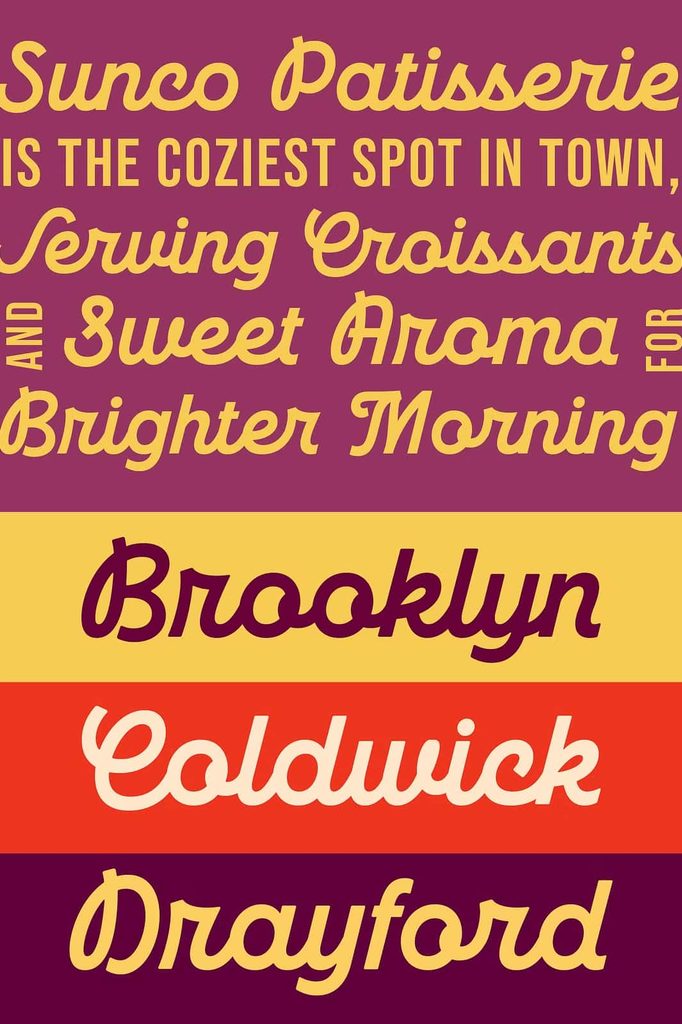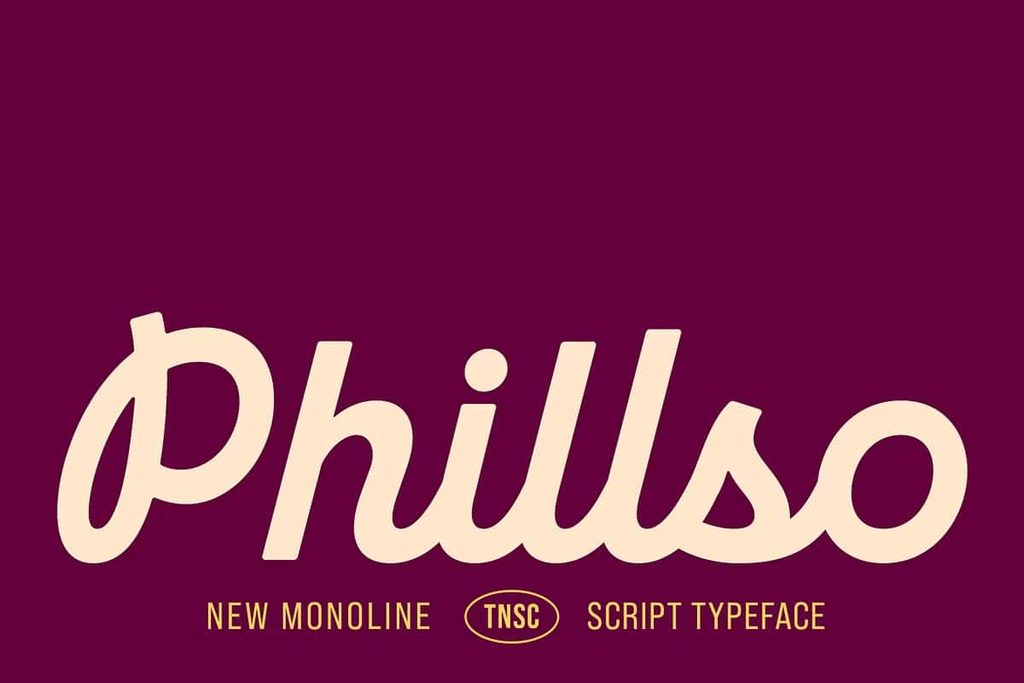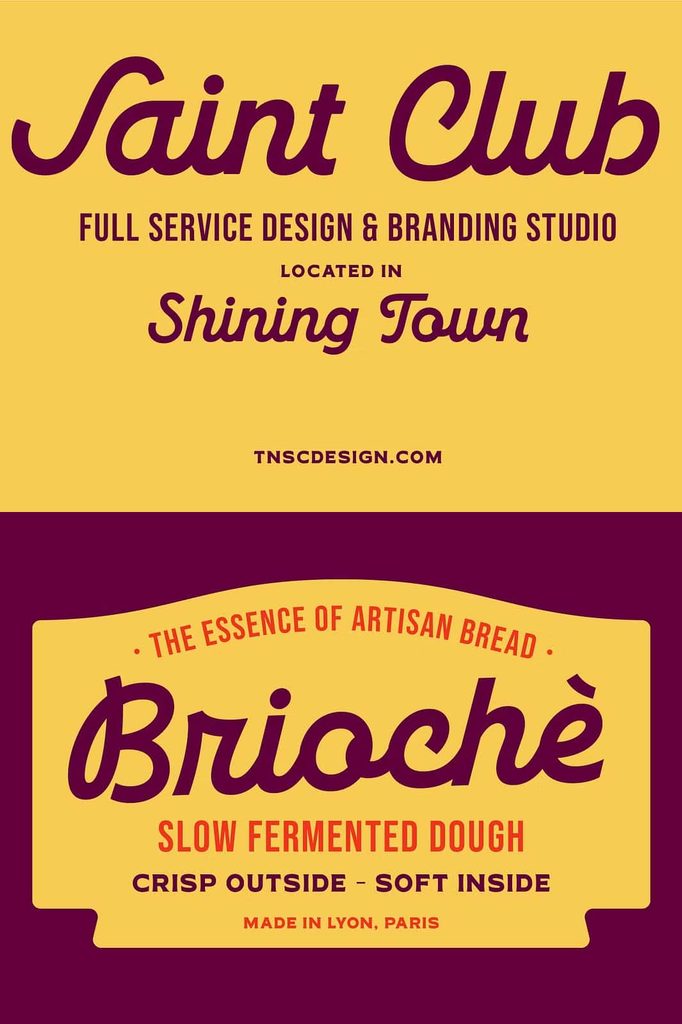
TNSC Phillso Font
TNSC Phillso Font brings bold personality and retro-inspired charm to modern typography. Designed as a monoline script, it combines smooth curves with a confident handwritten character, creating a warm and approachable appearance for a wide range of creative projects. Its consistent line quality gives the lettering a clean visual rhythm, while the flowing forms add the expressive quality that makes script typography so appealing.
Created with branding, packaging, and display design in mind, TNSC Phillso can help transform ordinary words into memorable visual elements. Its bold presence makes it particularly effective for logos, headlines, signs, café menus, product labels, and promotional graphics. The retro influence adds a nostalgic quality without preventing the font from working in contemporary layouts.
Whether you are building a complete brand identity or adding a distinctive typographic accent to a single design, TNSC Phillso provides a flexible solution. Its smooth curves and friendly personality allow designers to create compositions that feel handcrafted, energetic, and inviting.
A Bold Monoline Script with Retro Character
TNSC Phillso stands out through its monoline construction. The consistent stroke treatment creates a smooth and unified appearance across the lettering. Unlike scripts that rely heavily on dramatic variations in stroke width, this approach gives TNSC Phillso a cleaner and more approachable visual style.
The bold construction helps the font maintain a strong presence in display applications. Use it for short words, brand names, headlines, product names, and promotional messages where you want typography to immediately capture attention.
The retro-inspired character adds warmth and personality. It can evoke the atmosphere of classic storefronts, vintage advertisements, neighborhood cafés, old packaging, and handcrafted signs. At the same time, its clean construction allows you to incorporate it into modern branding systems without making the design feel overly dated.
Perfect for Branding and Logo Design
TNSC Phillso Font provides a strong foundation for expressive branding. Its bold script appearance can turn a simple business name into a distinctive wordmark with a friendly and memorable personality.
Use the font for cafés, bakeries, restaurants, food brands, clothing labels, creative studios, lifestyle businesses, handmade shops, beverage brands, and other businesses that want a warm and approachable visual identity.
For logo design, keep the composition focused on the lettering. A simple wordmark can often communicate more effectively than a crowded combination of graphics and text. You can also introduce a clean sans serif as supporting typography for taglines, descriptions, or contact information.
Experiment with spacing and scale to find the right balance for your brand. A large TNSC Phillso wordmark can create an energetic identity, while a smaller treatment can function as a subtle signature or decorative brand element.
Retro-Inspired Packaging Design
The nostalgic character of TNSC Phillso makes it particularly suitable for packaging. Use it for product names, labels, badges, stickers, boxes, bags, and promotional packaging that needs a handcrafted or vintage-inspired personality.
The bold monoline structure helps product names remain visible, while the flowing script adds an inviting quality. This combination can work especially well for food and beverage products, artisan goods, specialty products, apparel, and lifestyle merchandise.
To strengthen the retro aesthetic, combine TNSC Phillso with vintage-inspired colors, simple illustrations, textured backgrounds, borders, badges, or decorative shapes. For a more contemporary presentation, place the font against a clean background and reduce the number of supporting elements.
Ideal for Café Menus and Restaurant Branding
TNSC Phillso Font naturally complements café and restaurant design. Its warm script character can help create a welcoming atmosphere across menus, storefront signs, promotional posters, takeaway packaging, loyalty cards, and social media graphics.
Use the font for a café name, featured menu items, promotional messages, or decorative headings. Pair it with a clean supporting typeface for descriptions and pricing so that the design remains easy to navigate.
The retro influence can also reinforce a classic diner, coffee shop, bakery, or neighborhood café theme. Combine the lettering with simple illustrations, food photography, vintage badges, or subtle textures to create a cohesive visual identity.
Create Warm and Approachable Visuals
Typography strongly influences how viewers perceive a brand. A highly formal typeface can communicate luxury and authority, while a casual script can create a friendlier impression. TNSC Phillso combines boldness with smooth, relaxed curves to create a visual style that feels confident without becoming overly serious.
Whether you are building a friendly café identity, designing handcrafted packaging, creating a retro logo, or developing eye-catching promotional artwork, TNSC Phillso provides a flexible display style that can bring warmth and personality to your project. Its bold monoline construction and smooth script forms help your typography stand out while maintaining a polished and approachable appearance.